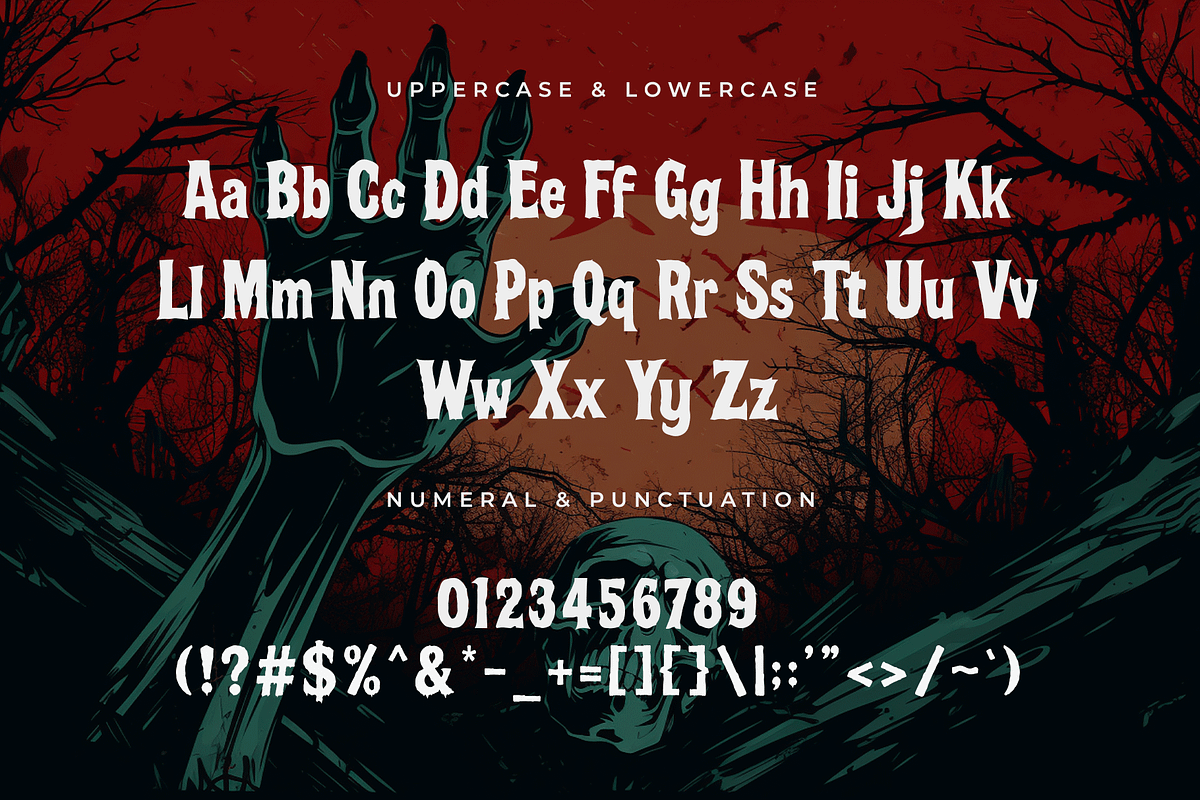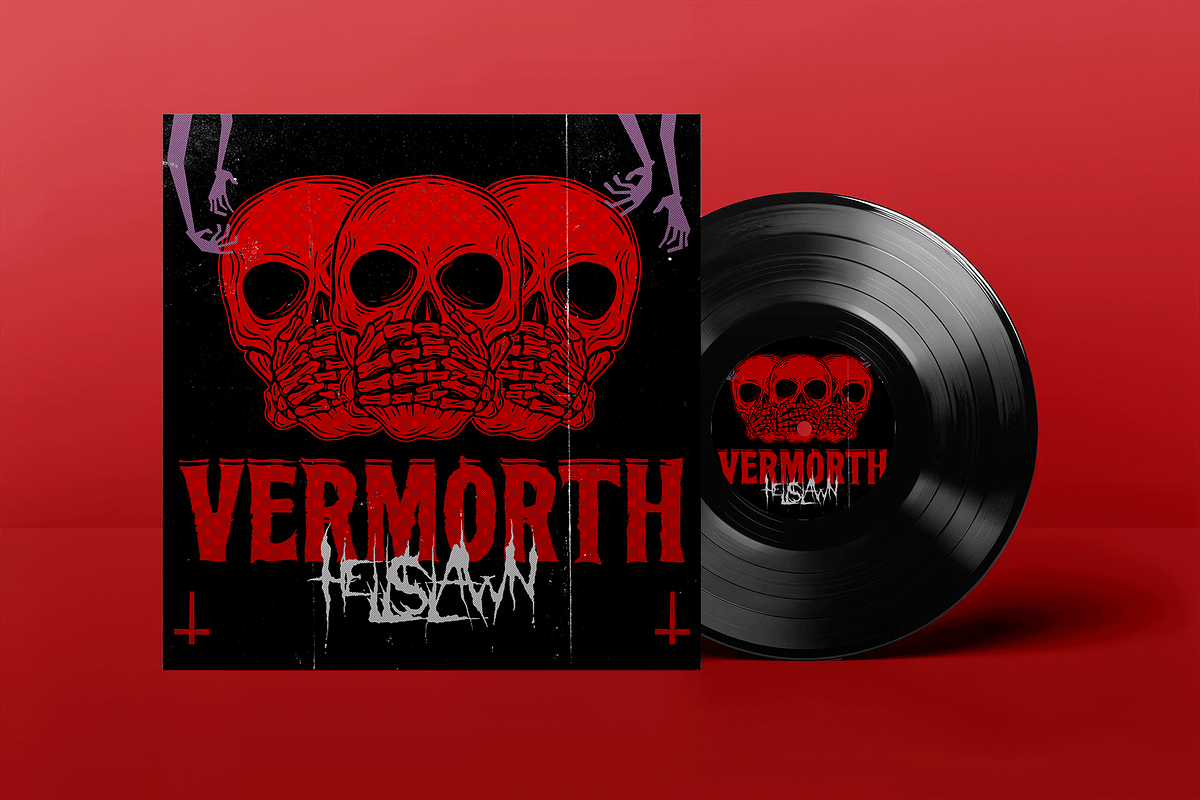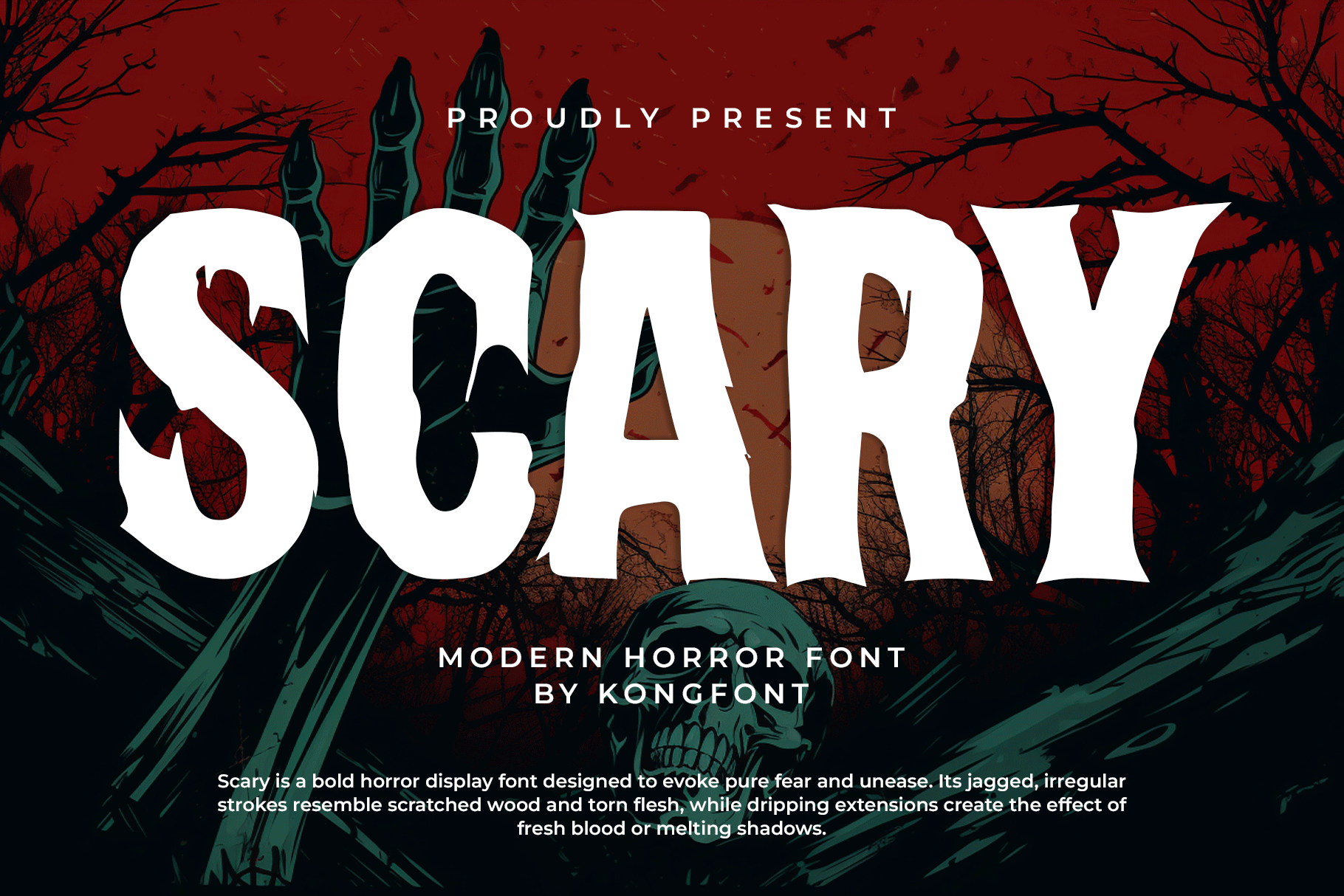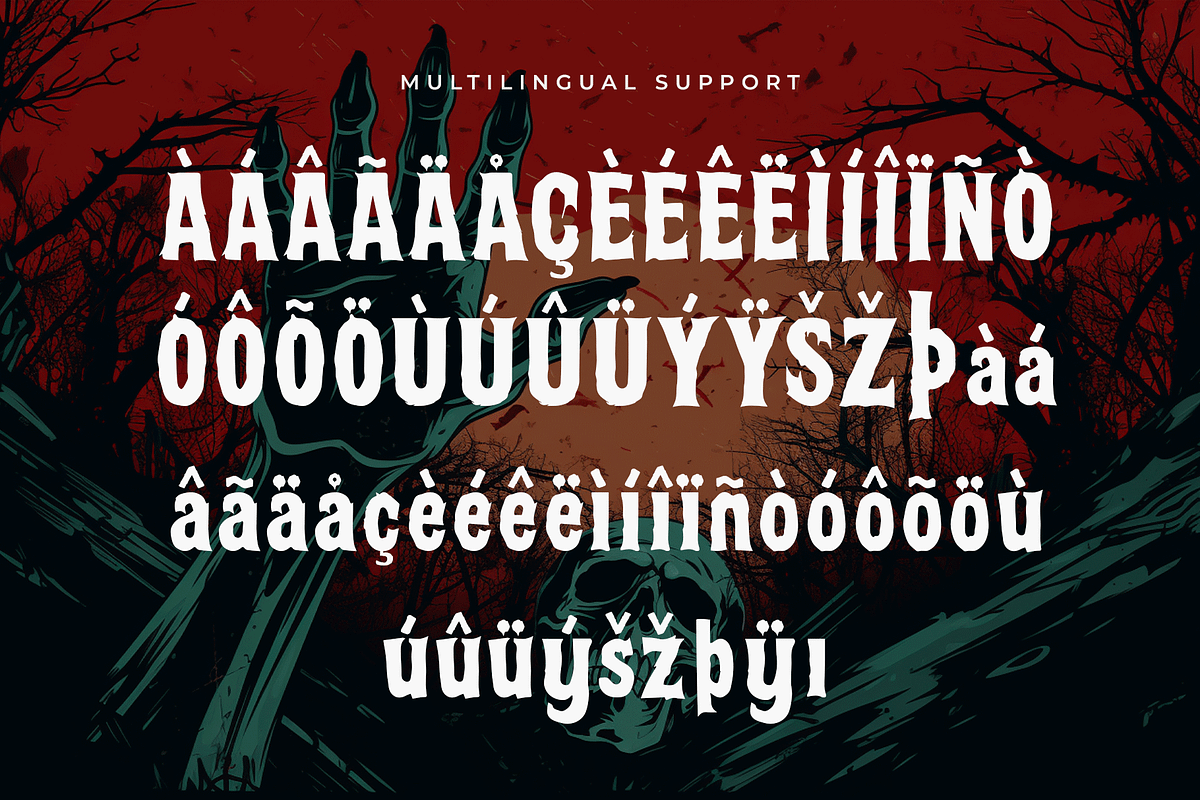
Scary – Modern Horror Font
Scary is a modern horror font crafted to deliver an eerie and chilling atmosphere. Its sharp strokes, uneven details, and bold structure make it the perfect choice for projects that need a terrifying yet stylish touch.
Ideal for horror movie posters, Halloween invitations, spooky logos, haunted event flyers, merchandise, and dark-themed social media graphics, Scary ensures your designs leave a lasting impression.
This font includes uppercase, lowercase, numbers, punctuation, and multilingual support, giving you the flexibility to use it across both digital and print projects. Whether you’re designing for a haunted attraction or creating creepy branding, Scary is the font to set the perfect terrifying tone.